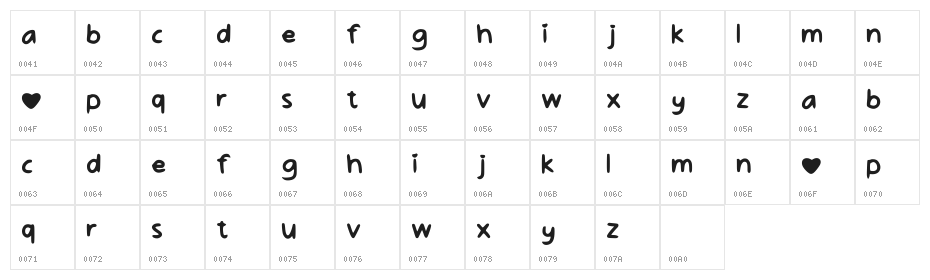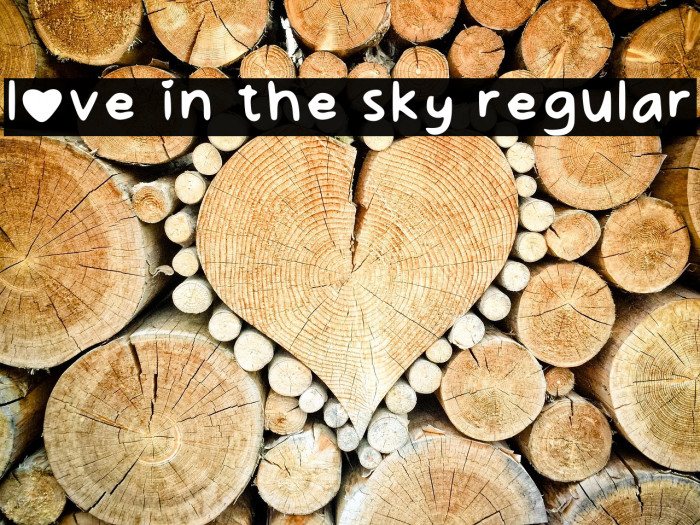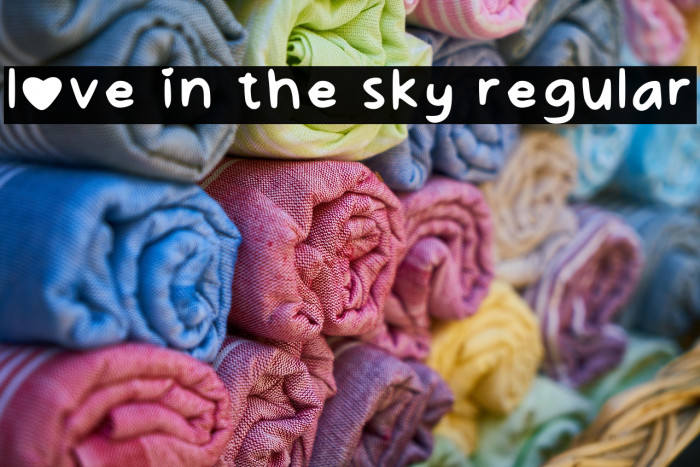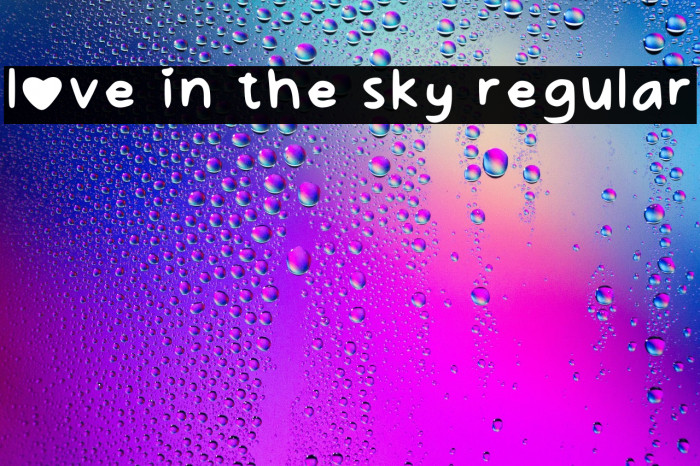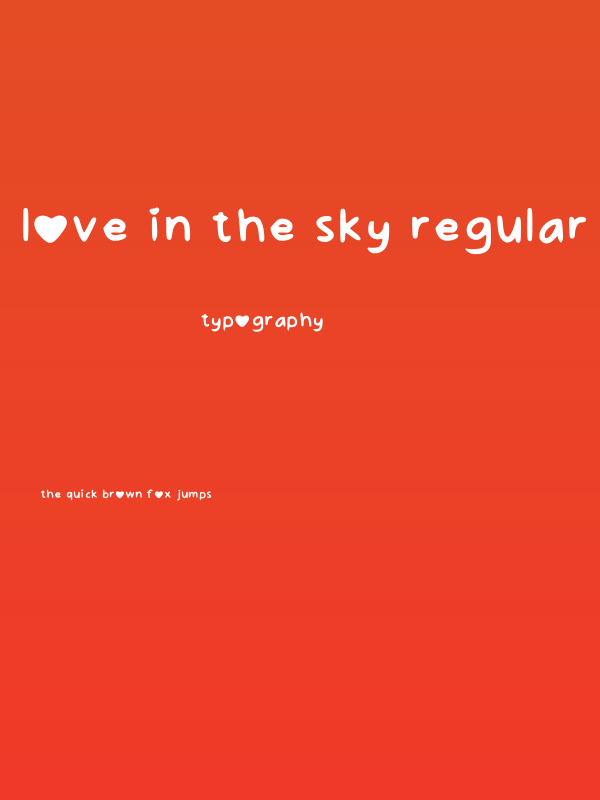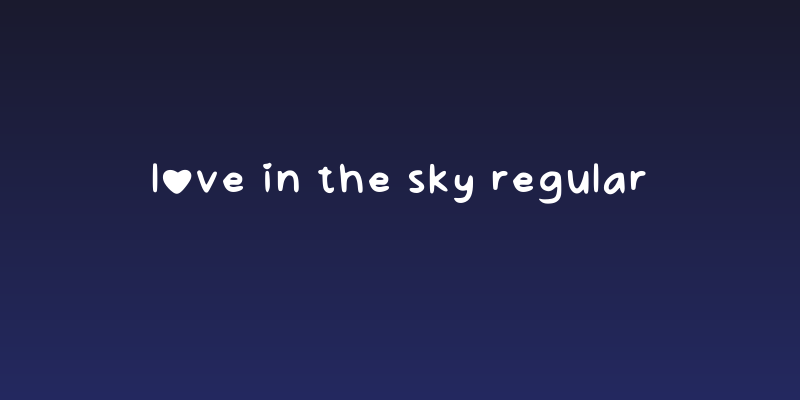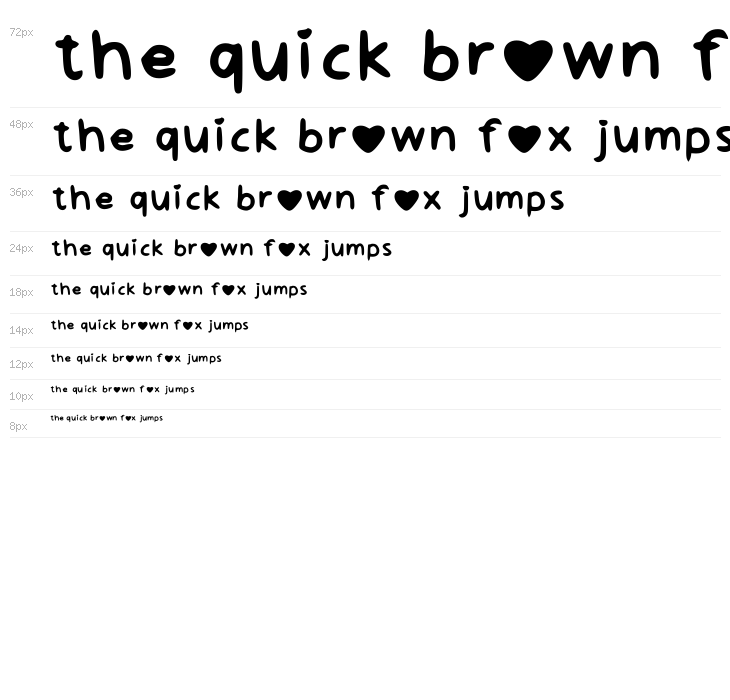
Love In The Sky Regular Font
Love In The Sky Regular Description
A playful, rounded handwritten typeface with a whimsical heart symbol replacing the letter 'o', featuring consistent stroke thickness and friendly, informal letterforms.
| Overall Style | Playful, Decorative, Informal |
| Use Case | Headlines, Posters, Greeting cards, Children's materials |
| Proposed Projects | ChildrenΓ’β¬β’s books, greeting cards, playful branding, posters, invitations. |